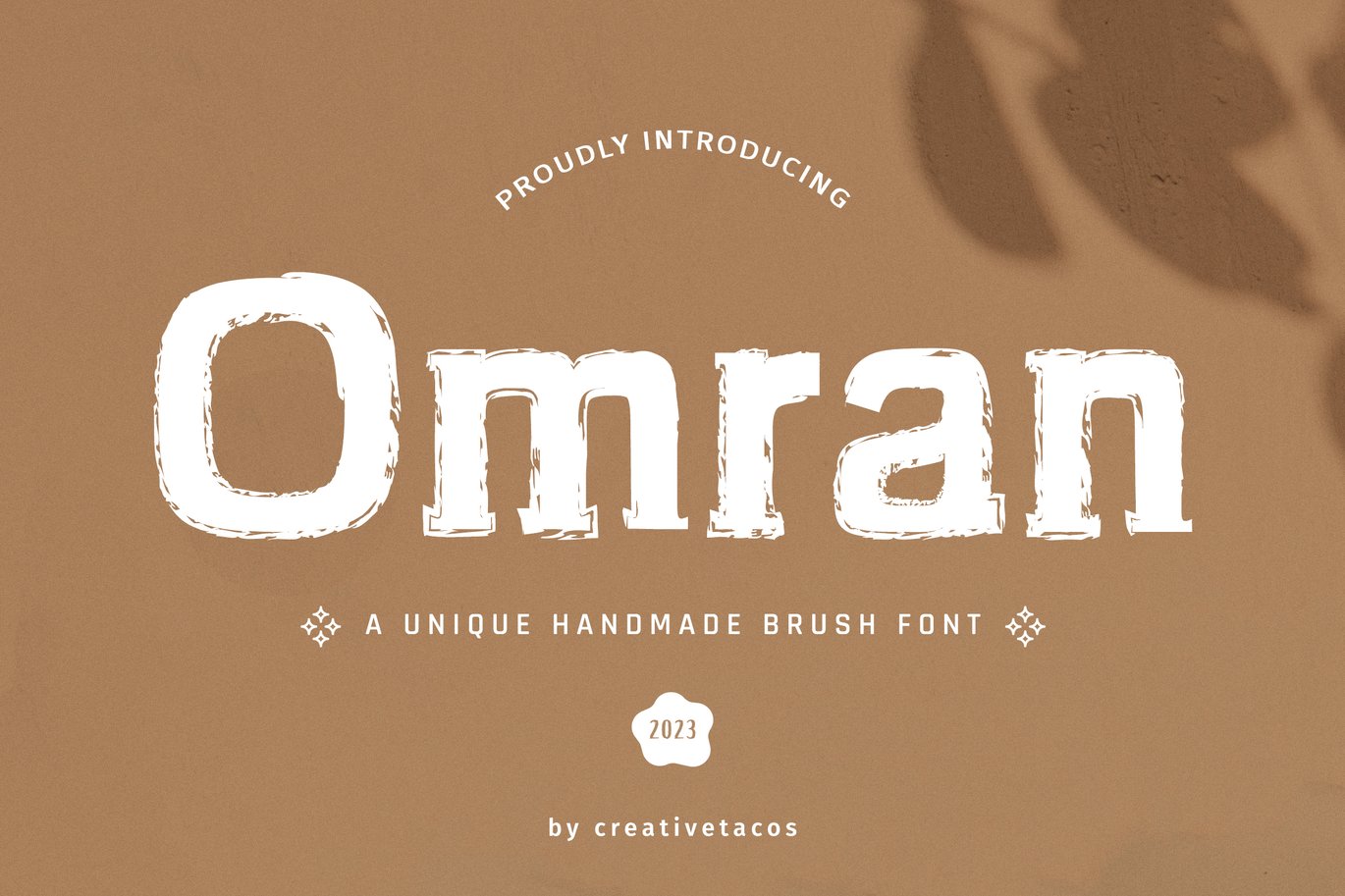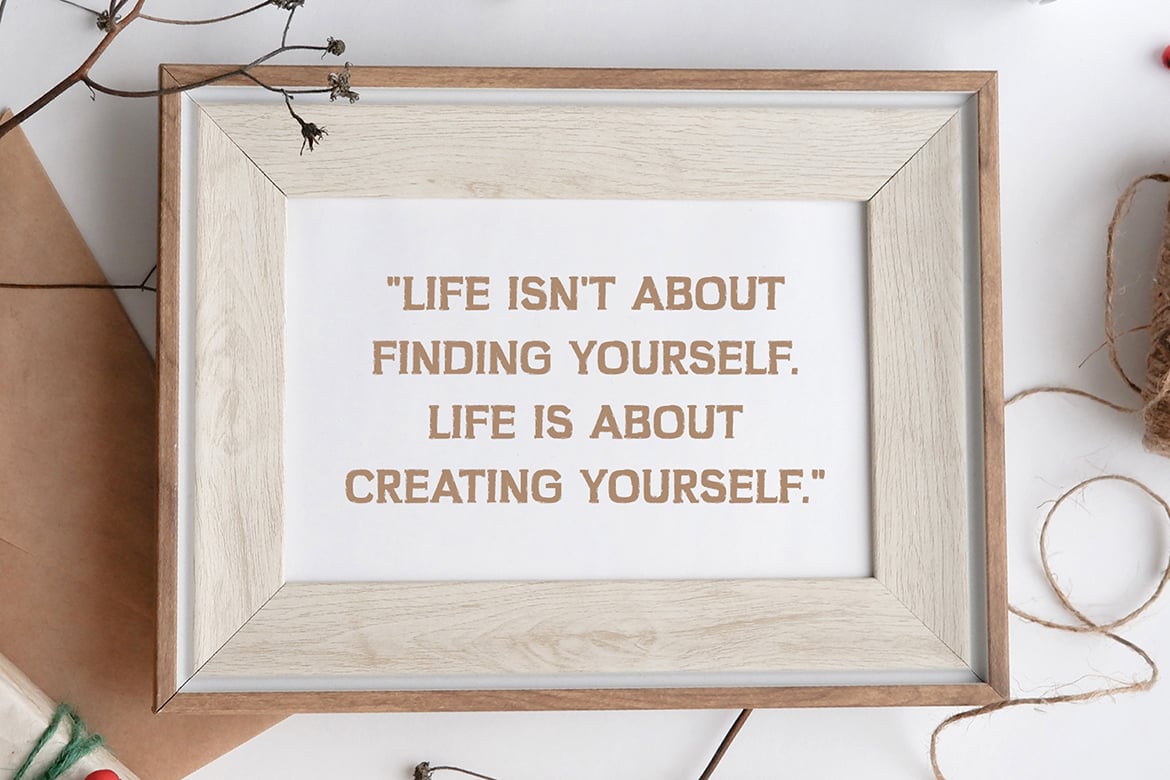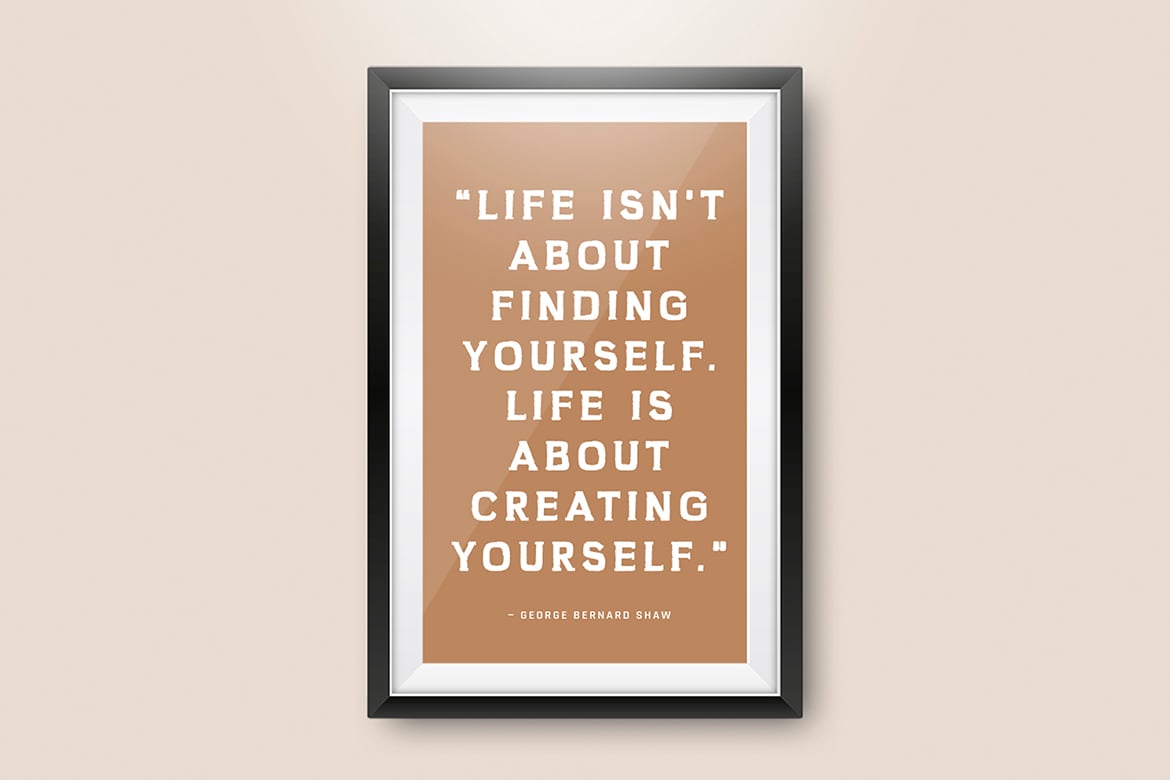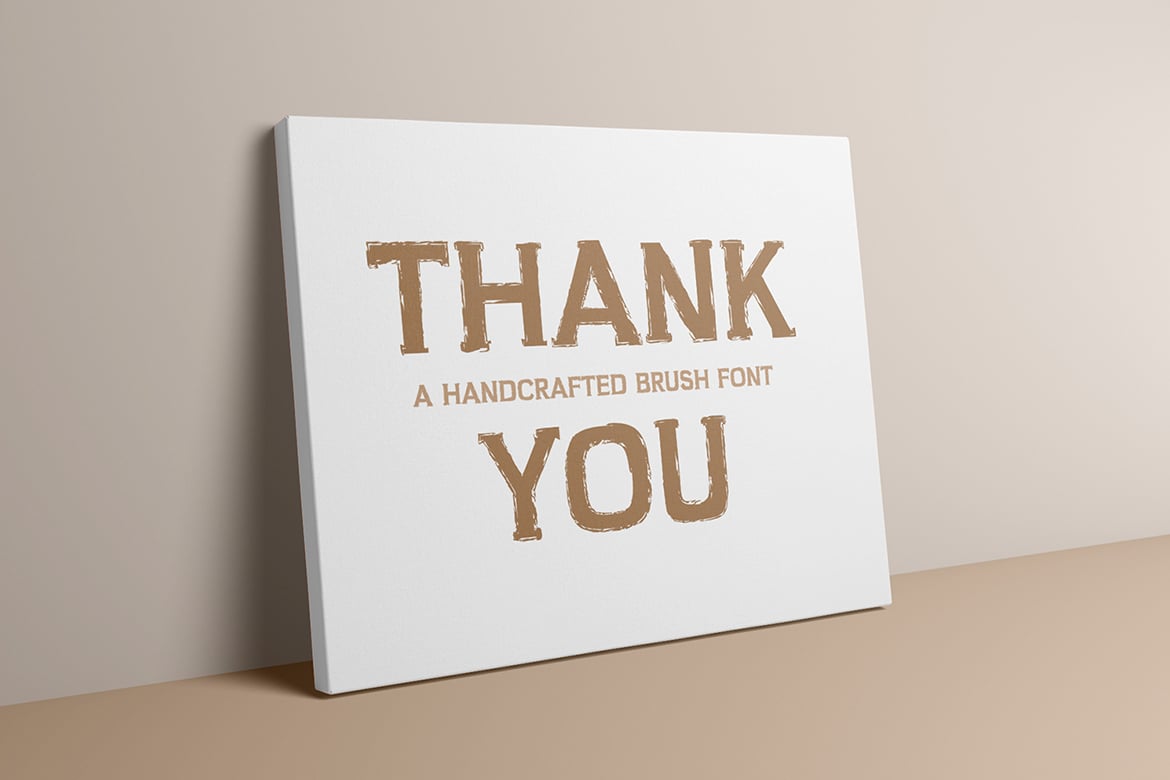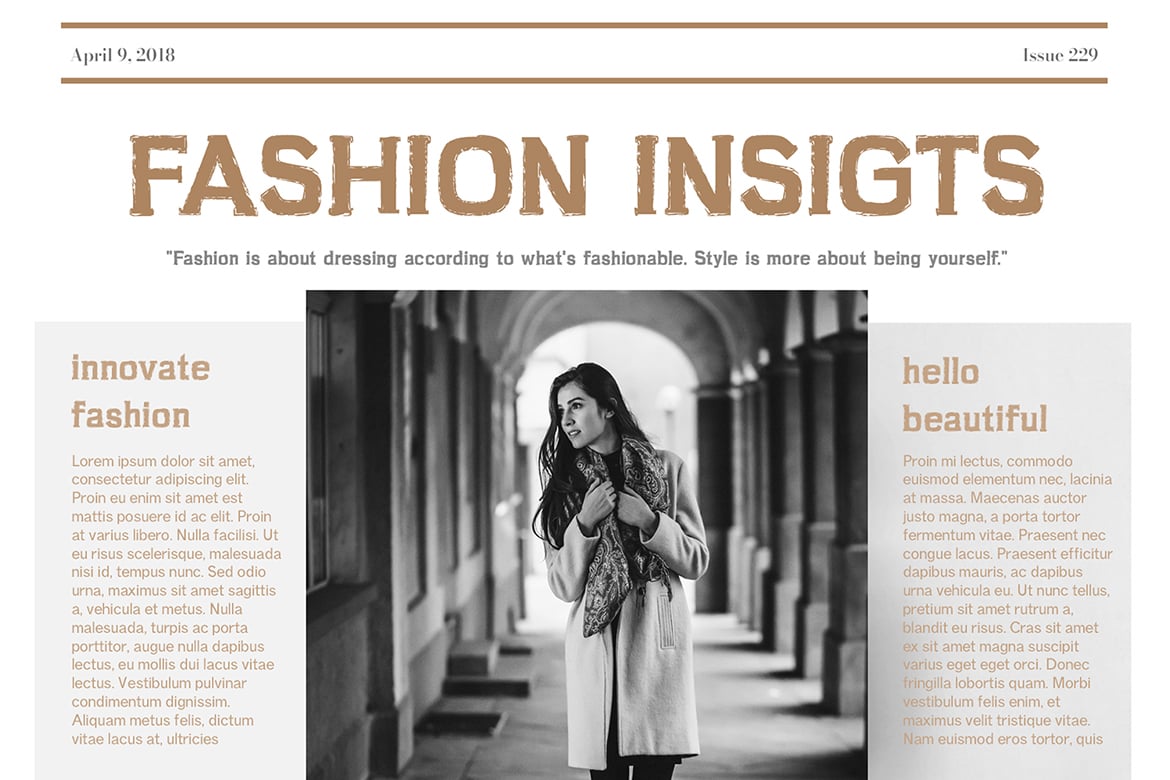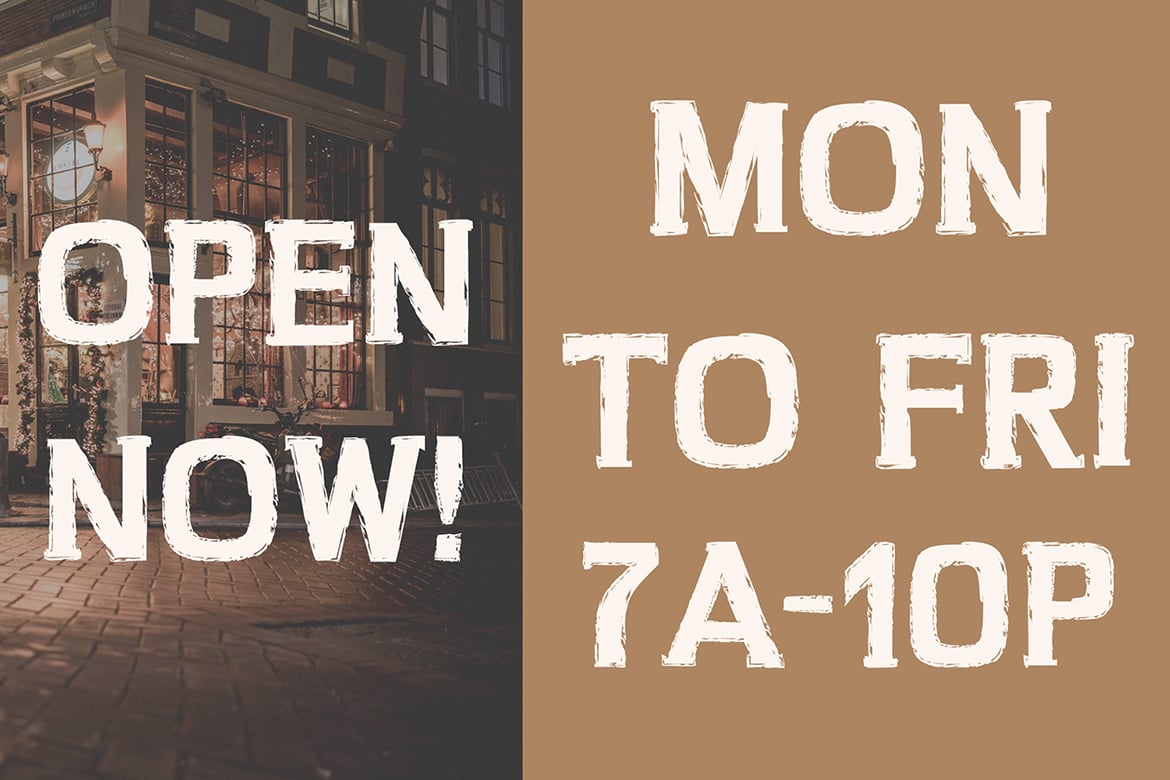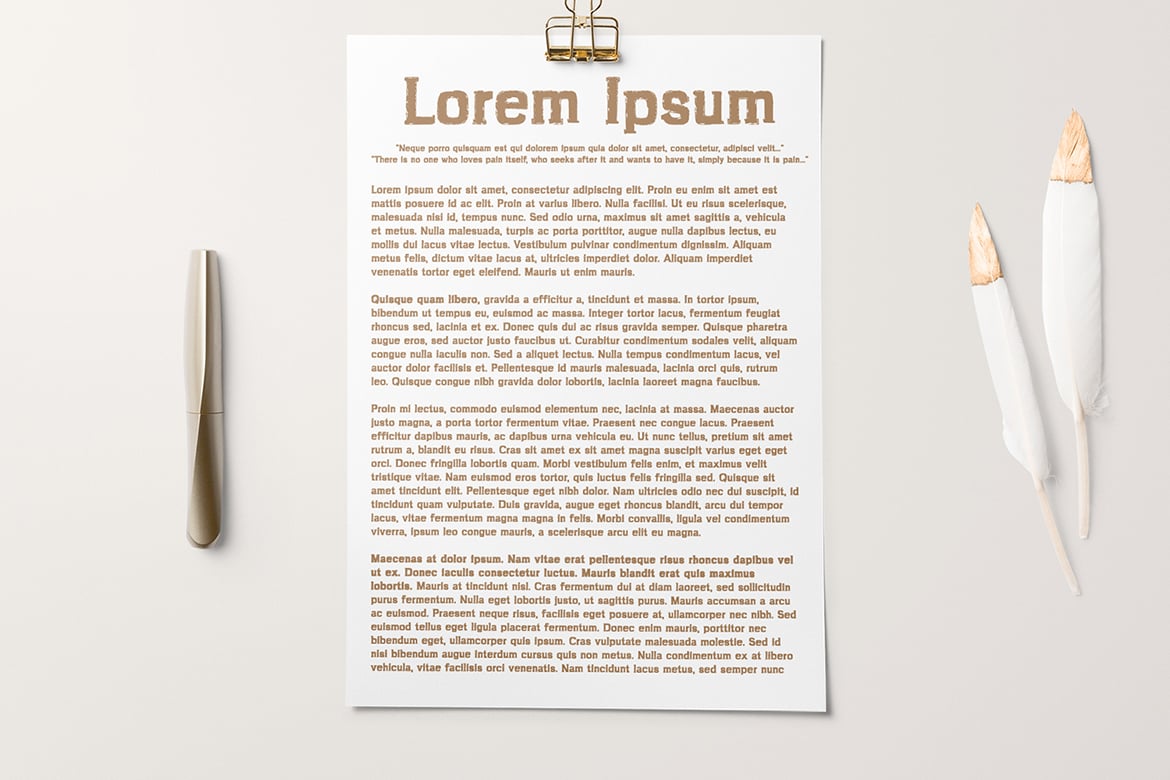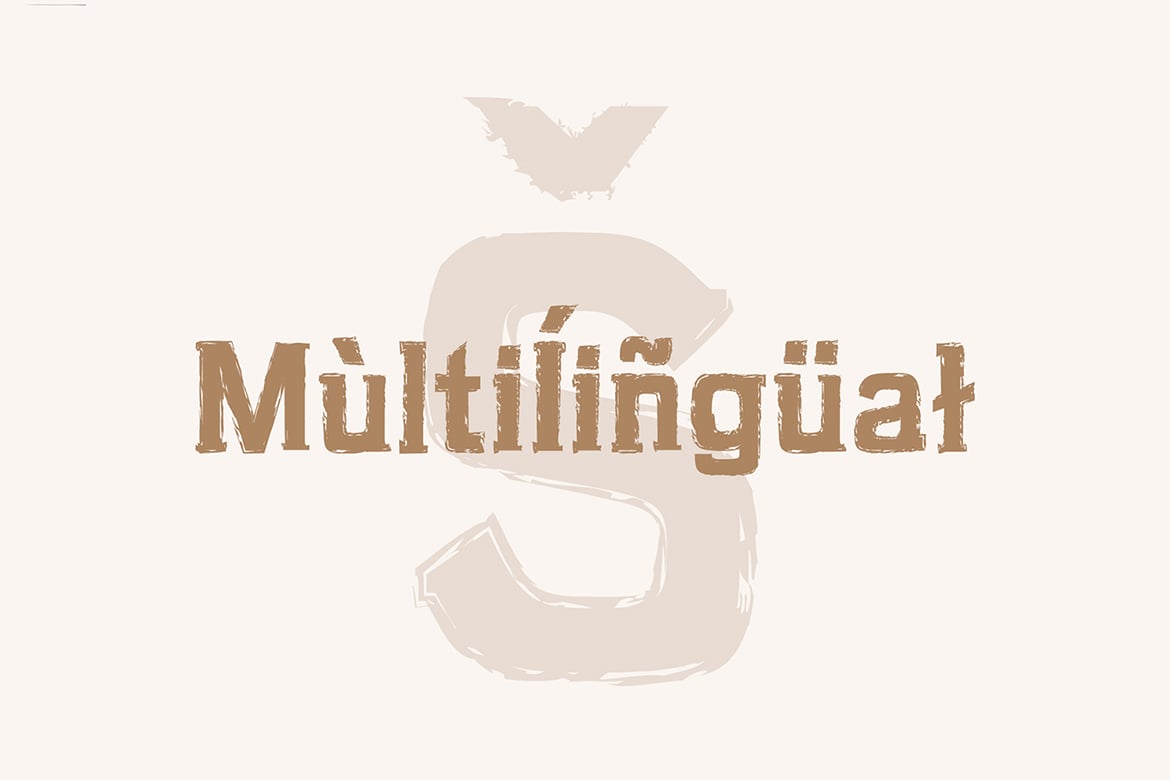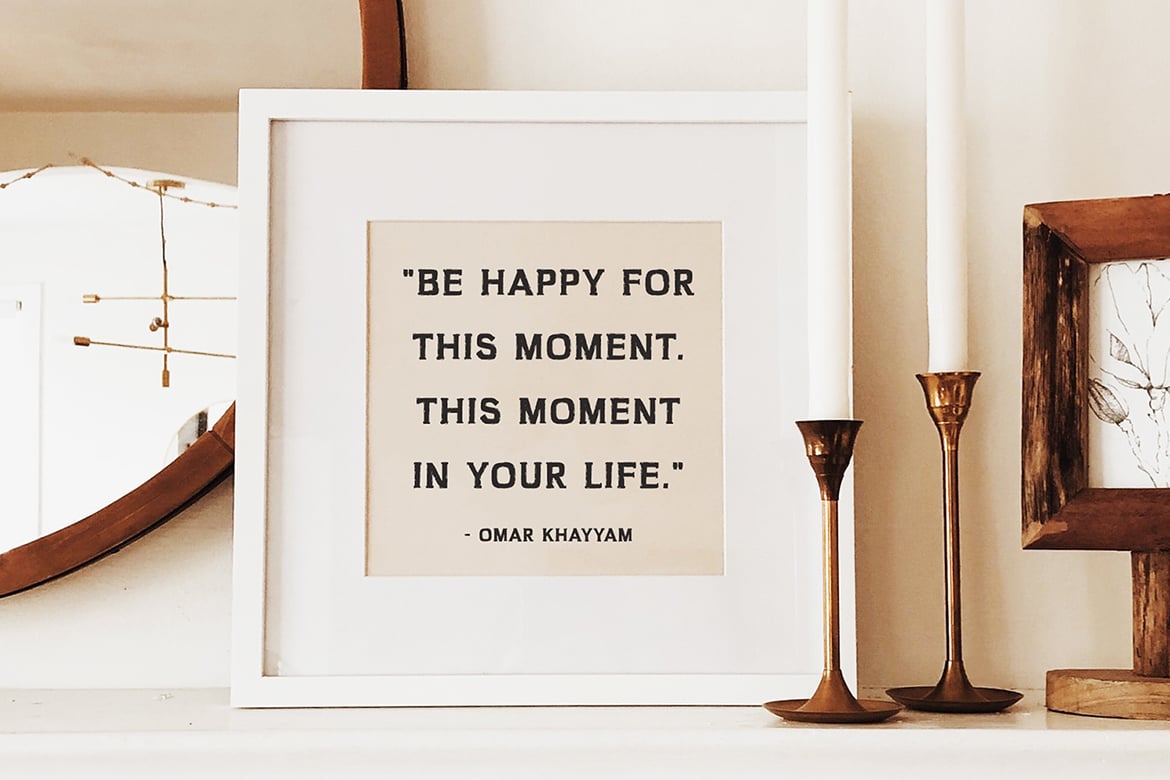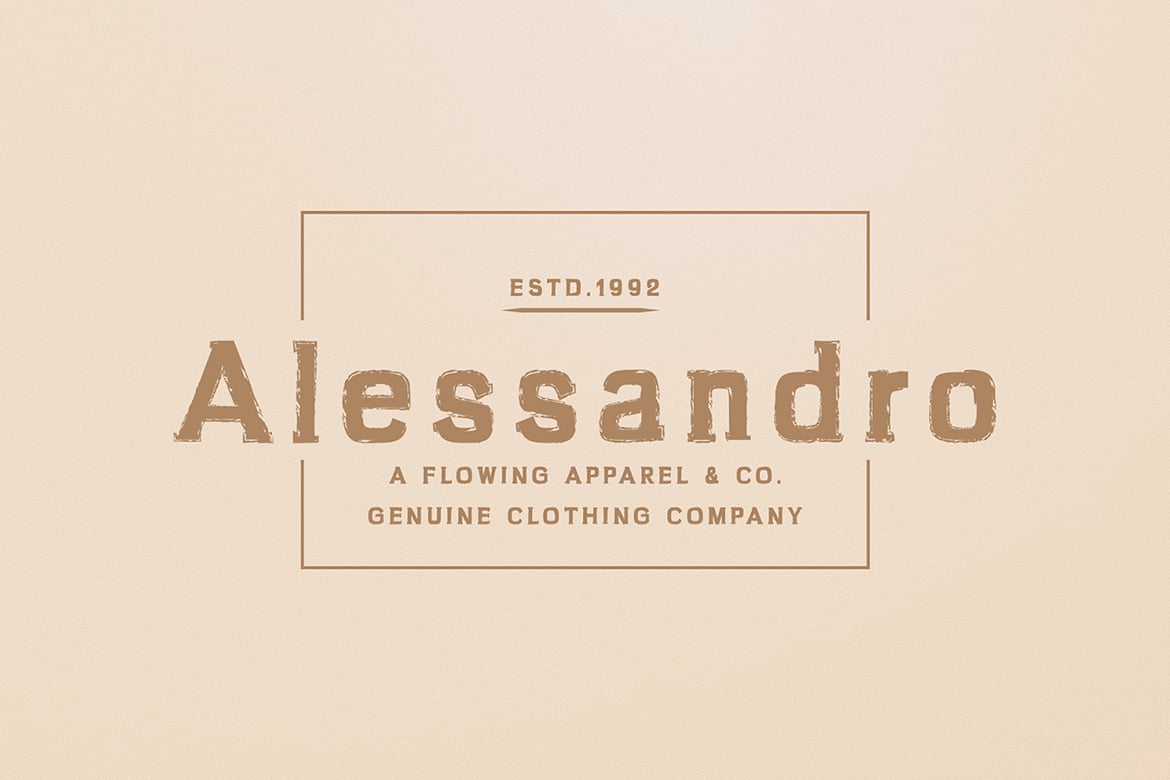
Omran Brush Font
Welcome to our Omran Hand-Drawn Typeface! It’s a lively, unique handwritten typeface that injects a contemporary and enjoyable twist to your forthcoming assignments. It equips you with everything you require – uppercase, lowercase, numbers, punctuation, and symbols, and even provides support for multiple languages.
Omran is the typeface for every occasion! Utilize it for presentations, logos, headlines, handwritten styles, posters, branding, uplifting quotes, titles, layout of magazines, web design, adverts, invites, cover artwork, and any other inventive project on your list.
- Capital Alphabets (Uppercase)
- Small Alphabets (Lowercase)
- Numerals & Symbols
- Multi-language Support
Let’s take a quick look at the supported characters:
- All the alphabets from A-Z (uppercase and lowercase)
- All the numerals from 0-9
- All these special characters – !”#$%&'()*+,-./:;<=>?@[]^_`{|}~¥
- And a selection of global characters like ÀÁÂÃÄÅÈÉÊËÌÍÎÏÑÒÓÔÕÖÙÚÛÜÝàáâãäåèéêëìíîïñòóôõöùúûüýÿỲ